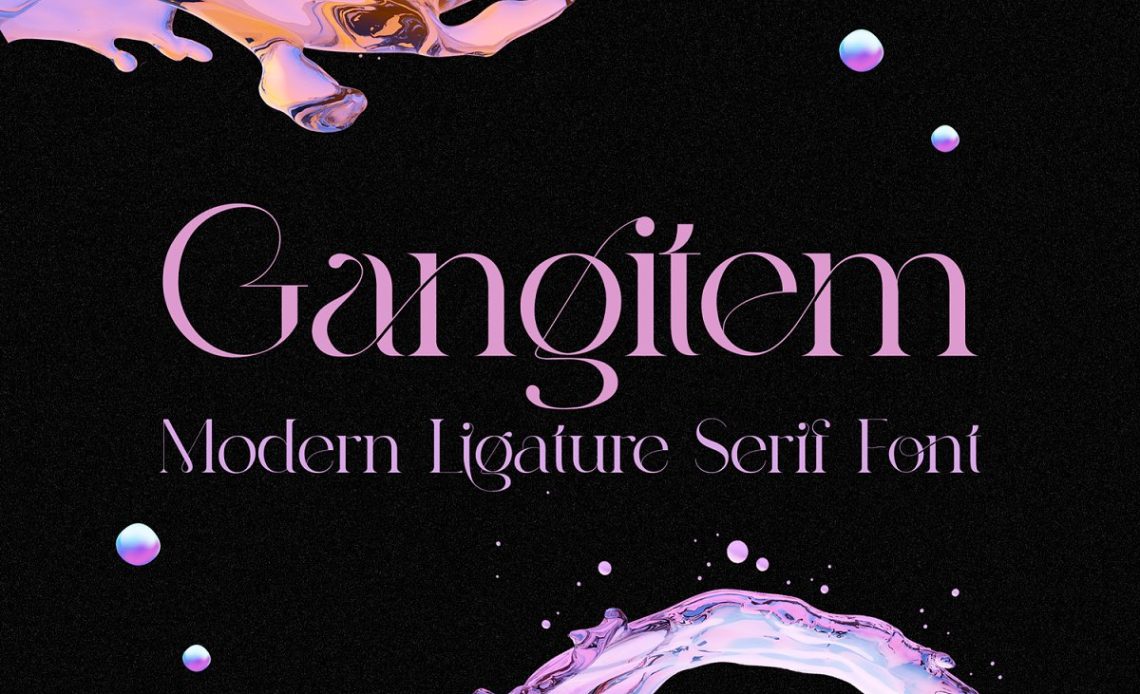
Looking to elevate your typography game? Look no further than Gangitem - Serif Font, the modern and elegant solution to all your font needs. Created by the talented Cuong Truong, this font is packed with unique features that will set your designs apart from the rest.
With a wide range of discretionary ligatures, Gangitem Font offers endless possibilities for creating captivating typography. Whether you're designing logos, mastheads, or pull quotes, this font will bring a touch of modern nostalgia to your projects. It pairs beautifully with minimal sans serif or light script fonts, allowing you to create stunning combinations.
But what makes Gangitem Font truly special are the carefully crafted ligatures that we have prepared for you. These ligatures, such as ae, am, an, and many more, add a fancy touch to every uppercase and some lowercase letters. They will make your designs stand out and leave a lasting impression on your audience.
Not only does Gangitem Font include these fancy ligatures, but it also offers a full set of features to enhance your creativity. You'll have access to both uppercase and lowercase letters, special ligatures, stylistic alternates, numerals and punctuation, as well as accented characters. This comprehensive set ensures that you have everything you need to create visually stunning and professional designs.